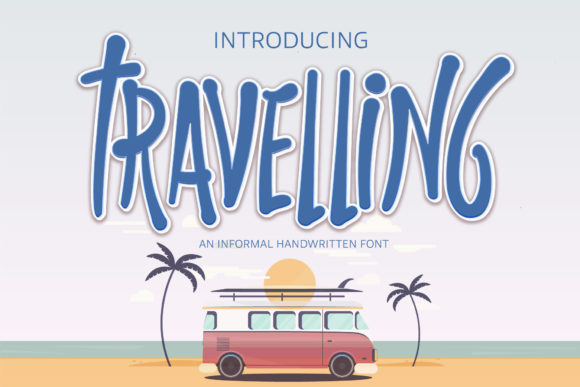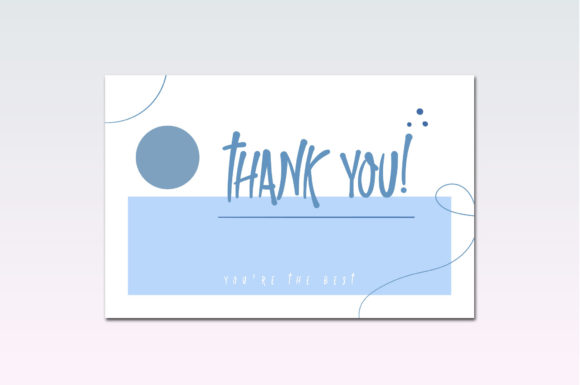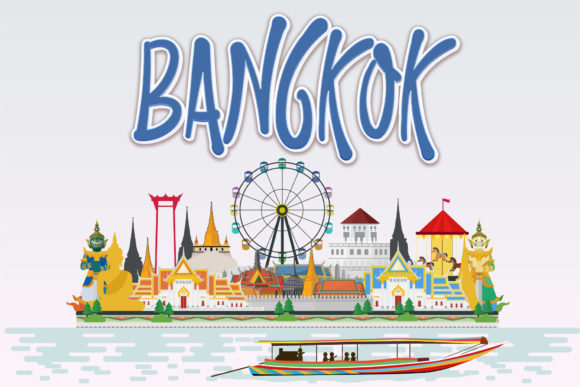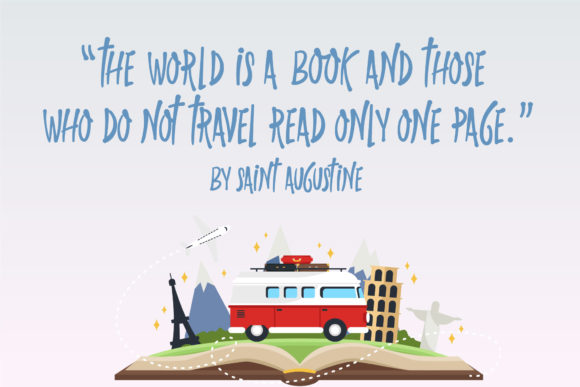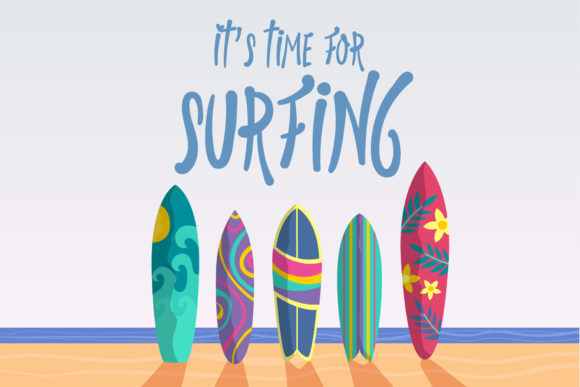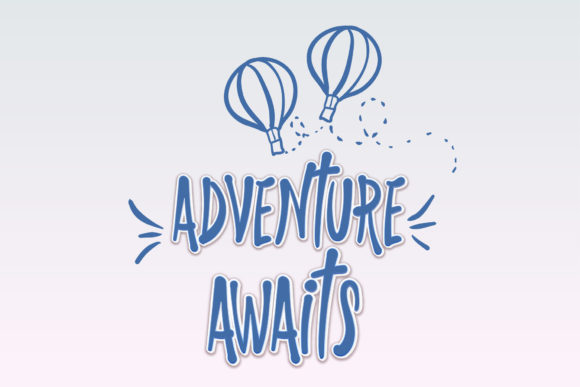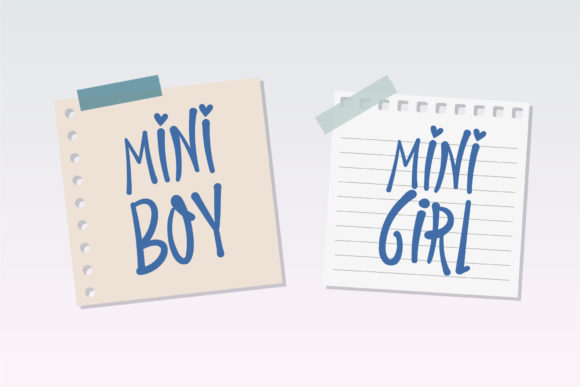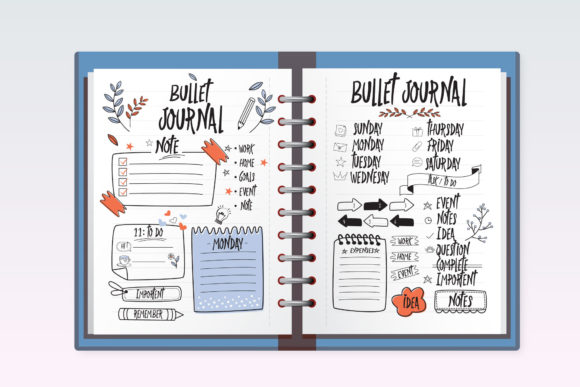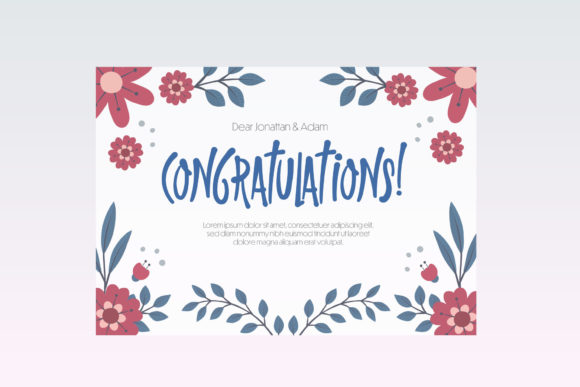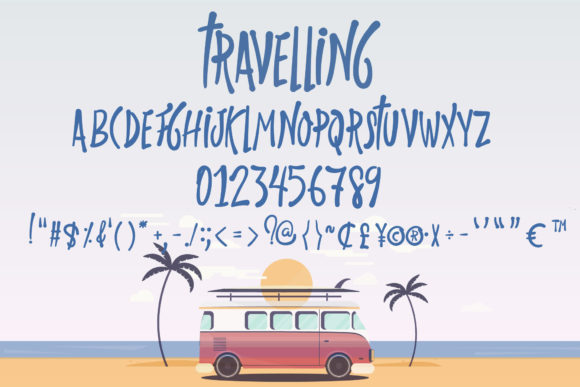
Travelling Font
About Travelling Font
Travelling is a quirky and friendly handwritten font. Whimsical and casual, this font will brighten up each of your designs. Add it confidently to your projects, and you will love the results.